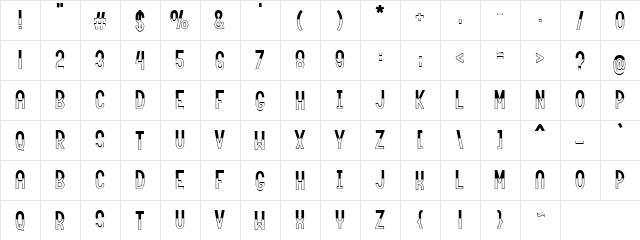
Roundabout Fill Fill
Design Context for Roundabout Fill Typeface
Roundabout Fill uses gentle rounded endings to create a warm, inviting typographic personality — less corporate than geometric sans, more refined than playful display fonts.
Well-suited to UI design, mobile interfaces, and any brand that wants approachability without sacrificing clarity.
Font Pairing: Pairs well with a rounded or humanist sans for body copy, maintaining the friendly tone without relying on Roundabout Fill to carry extended reading.
Pro Tip: Use Roundabout Fill for UI elements, app interfaces, and anywhere a friendly, approachable tone needs to be maintained without sacrificing clarity.